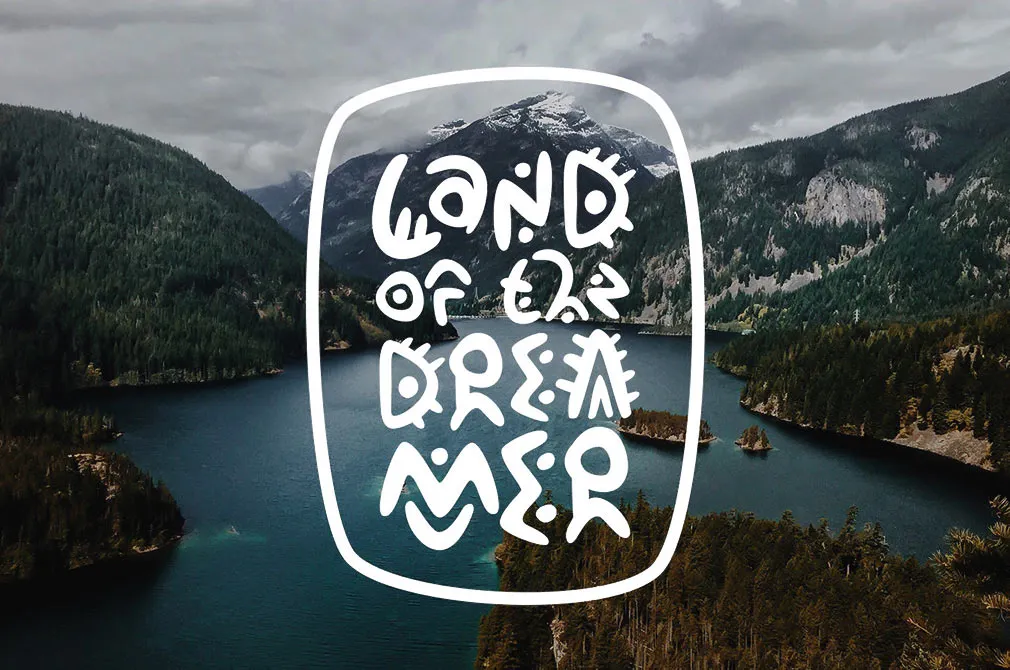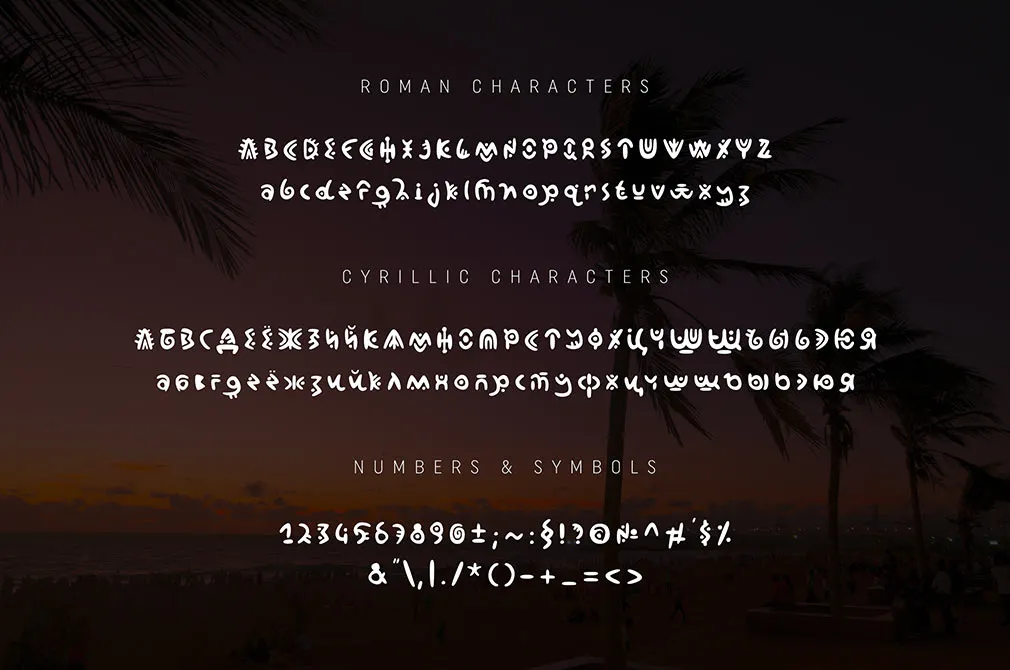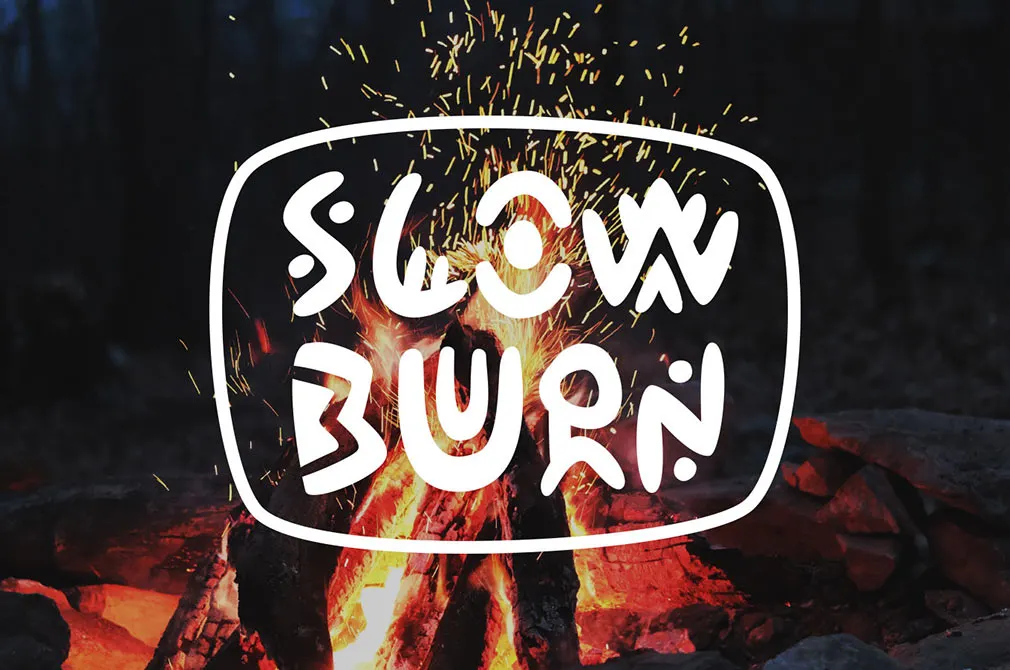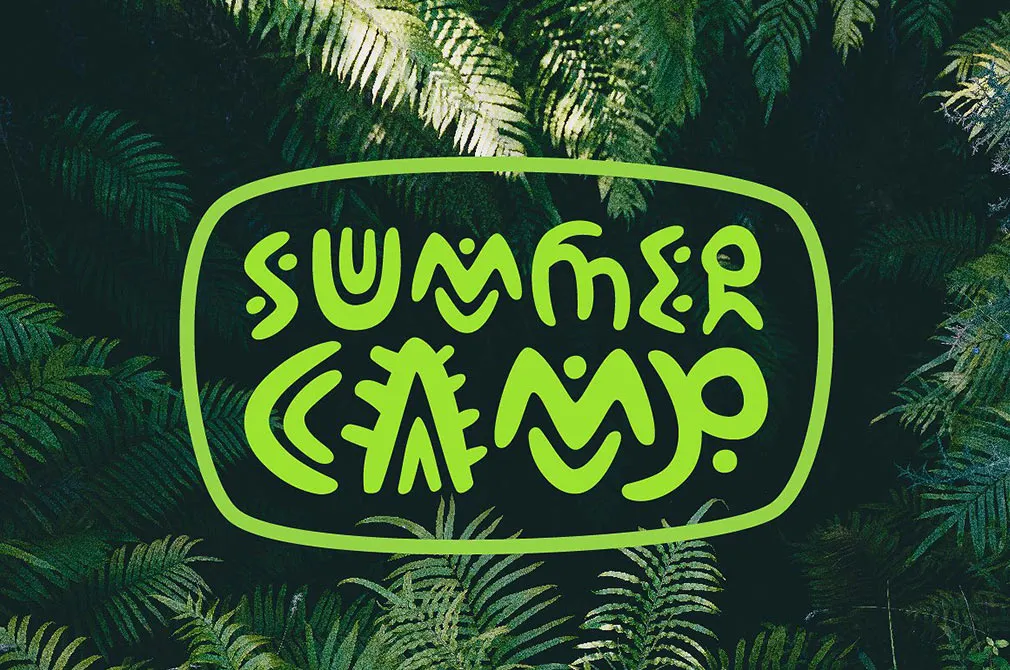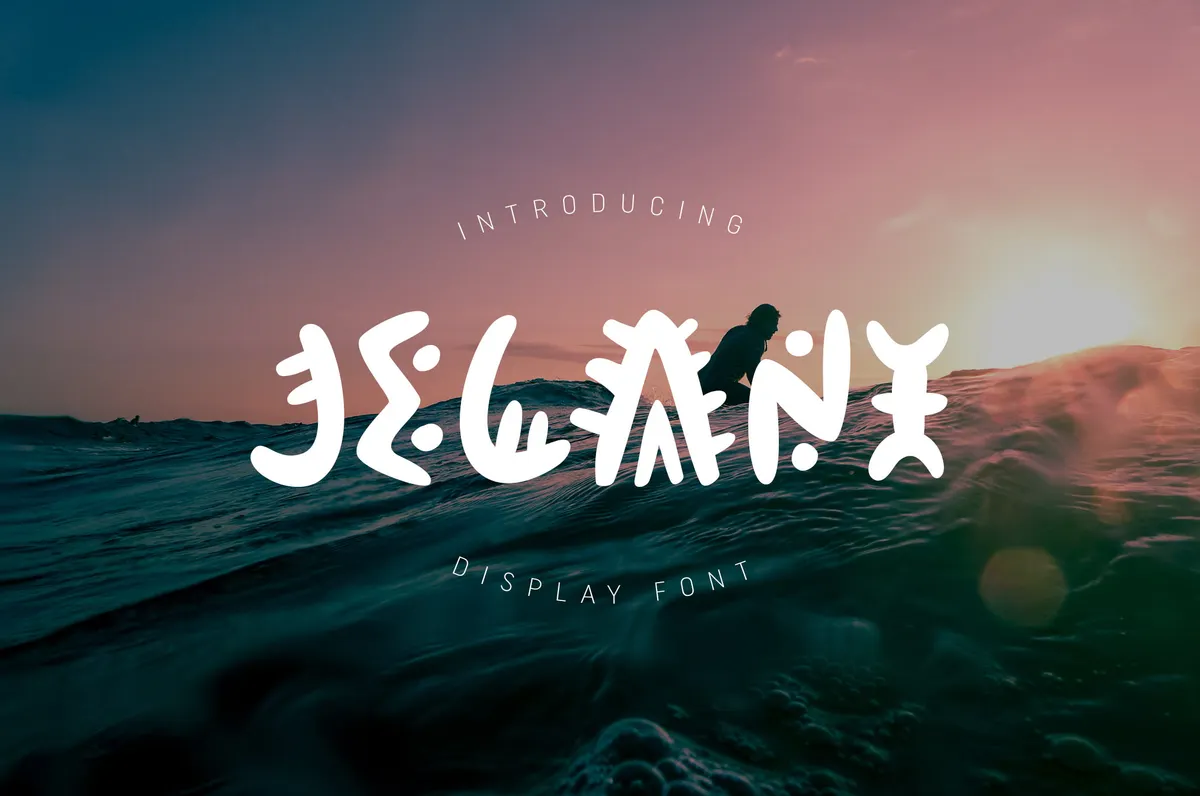
Jelani Display Font
The heritage of the African culture is incredible, and we hungrily hunt for every piece of it so we know you will appreciate a display font, thats inspired by African folklore.
Discover genuine motifs and tales images transformed into a precisely crafted typeface. Jelani contains a full set of lower & uppercase letters, punctuation, numerals, Cyrillic characters (whats a truly rare thing!) and multilingual support. All of written above makes it a dream typeface you can use to add some personality and fierce energy to your logos, quotes, posters, branding projects, packaging and so much more. So let the creative process start!